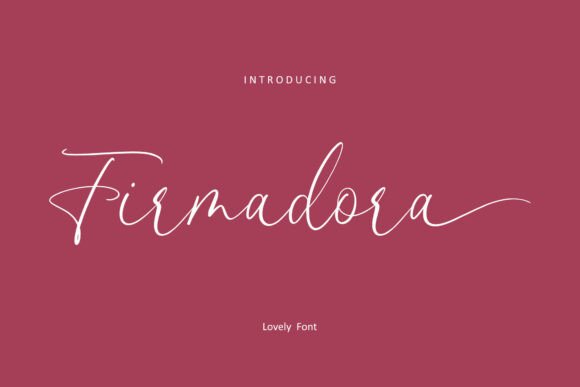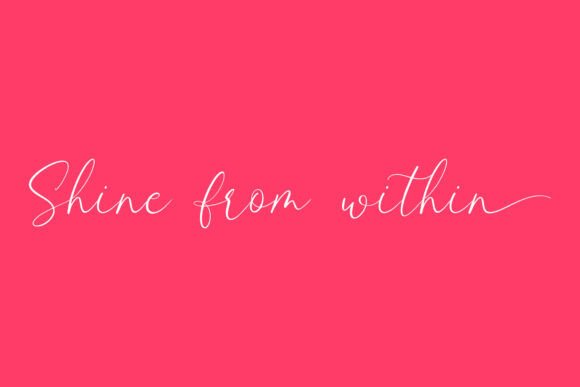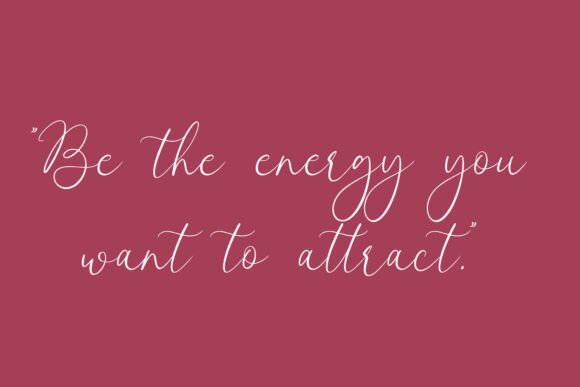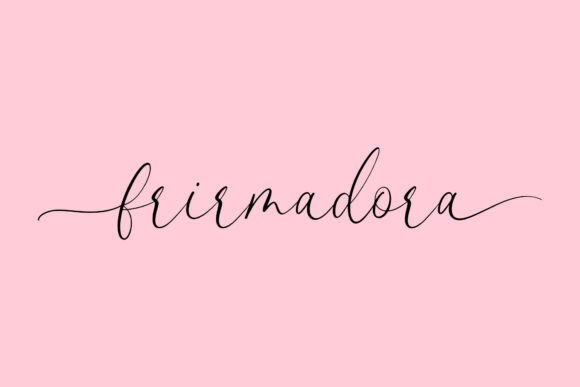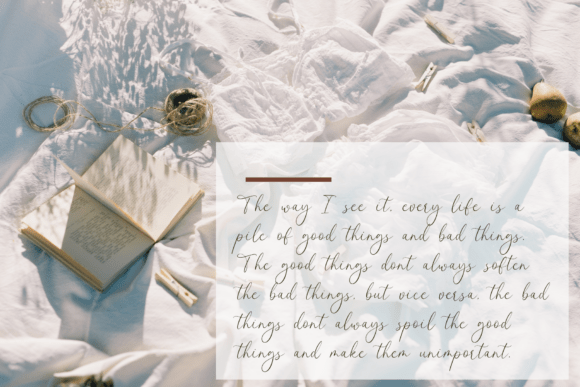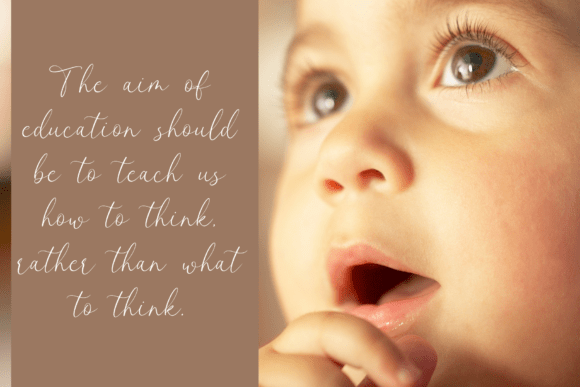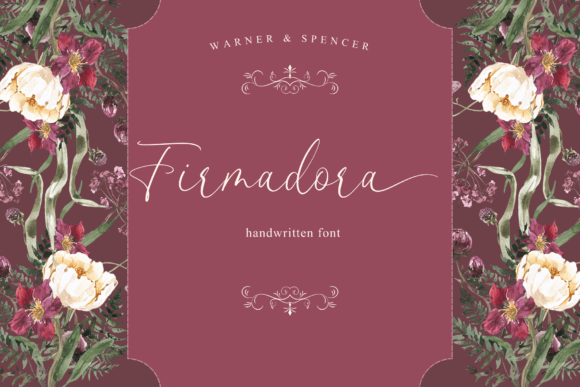
Firmadora Font: Elevate Your Designs with Elegance and Sophistication
In the world of typography, fonts play a crucial role in conveying the tone and personality of a design. For designers and crafters seeking to add a touch of luxury and exclusivity to their projects, Firmadora Font is an excellent choice. This elegant and sophisticated script font is perfect for premium design projects, including wedding invitations, branding, and packaging.
The Unique Style of Firmadora Font
Firmadora Font boasts an intricate and decorative style that sets it apart from other script fonts. Its unique blend of classic and modern elements makes it an ideal choice for designers looking to create stunning and high-end designs. The font’s elegant swashes and flourishes add a touch of sophistication, making it perfect for designs that require a level of luxury and refinement.
Perfect for Premium Design Projects
Firmadora Font is specifically designed for premium design projects, including:
- Wedding Invitations: Add a touch of elegance and sophistication to your wedding invitations with Firmadora Font. Its intricate details and decorative swashes make it perfect for formal wedding designs.
- Branding: Establish your brand’s luxury and exclusivity with Firmadora Font. Its unique style makes it ideal for high-end branding projects, including logos, business cards, and letterheads.
- Packaging: Elevate your packaging designs with Firmadora Font. Its sophisticated style makes it perfect for luxury product packaging, including high-end cosmetics, jewelry, and fashion brands.
Key Features of Firmadora Font
Firmadora Font offers a range of key features that make it an excellent choice for designers and crafters, including:
- Elegant and Sophisticated Style: Firmadora Font boasts an intricate and decorative style that adds a touch of luxury and exclusivity to any design.
- Intricate Details: The font’s intricate details and decorative swashes make it perfect for premium design projects.
- Unique Style: Firmadora Font’s unique blend of classic and modern elements makes it an ideal choice for designers looking to create stunning and high-end designs.
- High-Quality Design: Firmadora Font is designed to the highest standards, ensuring a high-quality design that will elevate your projects.
Tips for Using Firmadora Font
To get the most out of Firmadora Font, follow these tips:
- Use it Sparingly: Firmadora Font is a statement font, so use it sparingly to avoid overwhelming your design.
- Pair it with a Simple Font: Pair Firmadora Font with a simple font to create a striking contrast and add visual interest to your design.
- Experiment with Swashes: Experiment with the font’s decorative swashes and flourishes to add a touch of elegance and sophistication to your design.
Firmadora Font is an elegant and sophisticated script font that adds a touch of luxury and exclusivity to any design. Its intricate decorative details make it perfect for premium design projects, including wedding invitations, branding, and packaging. With its unique style and high-quality design, Firmadora Font is an excellent choice for designers and crafters seeking to elevate their designs.